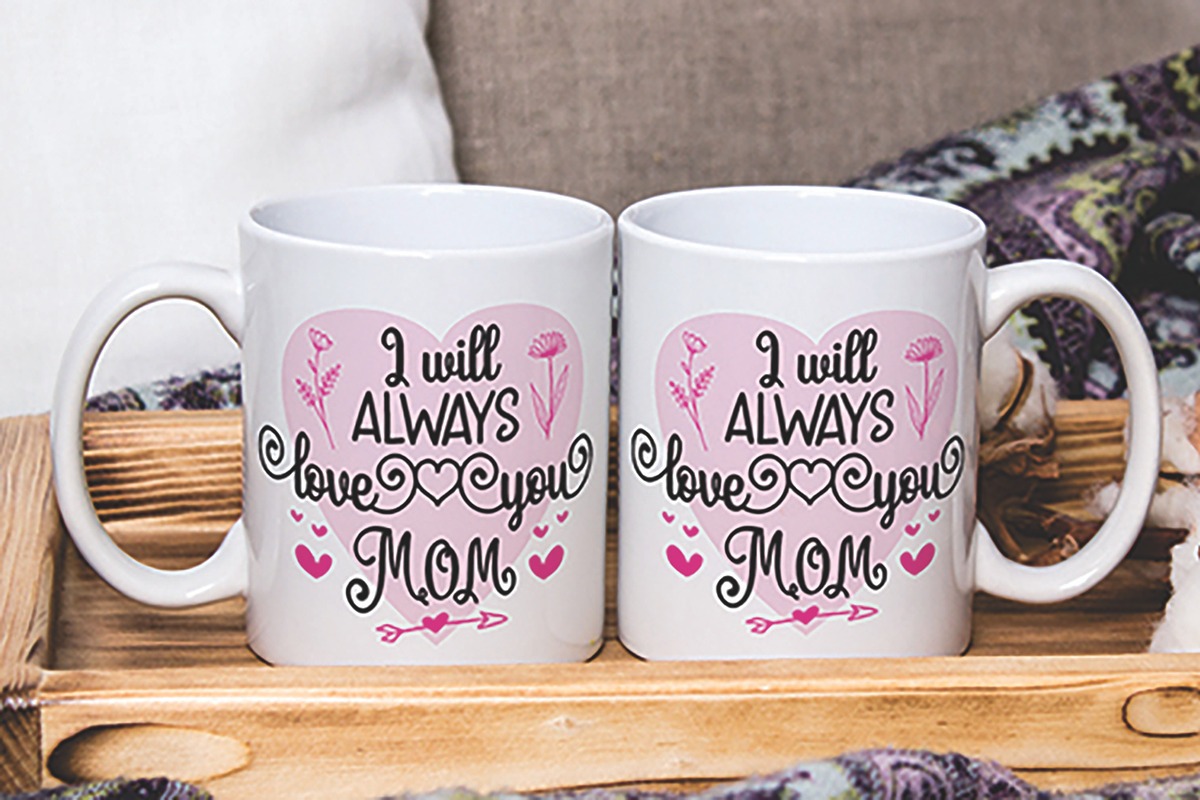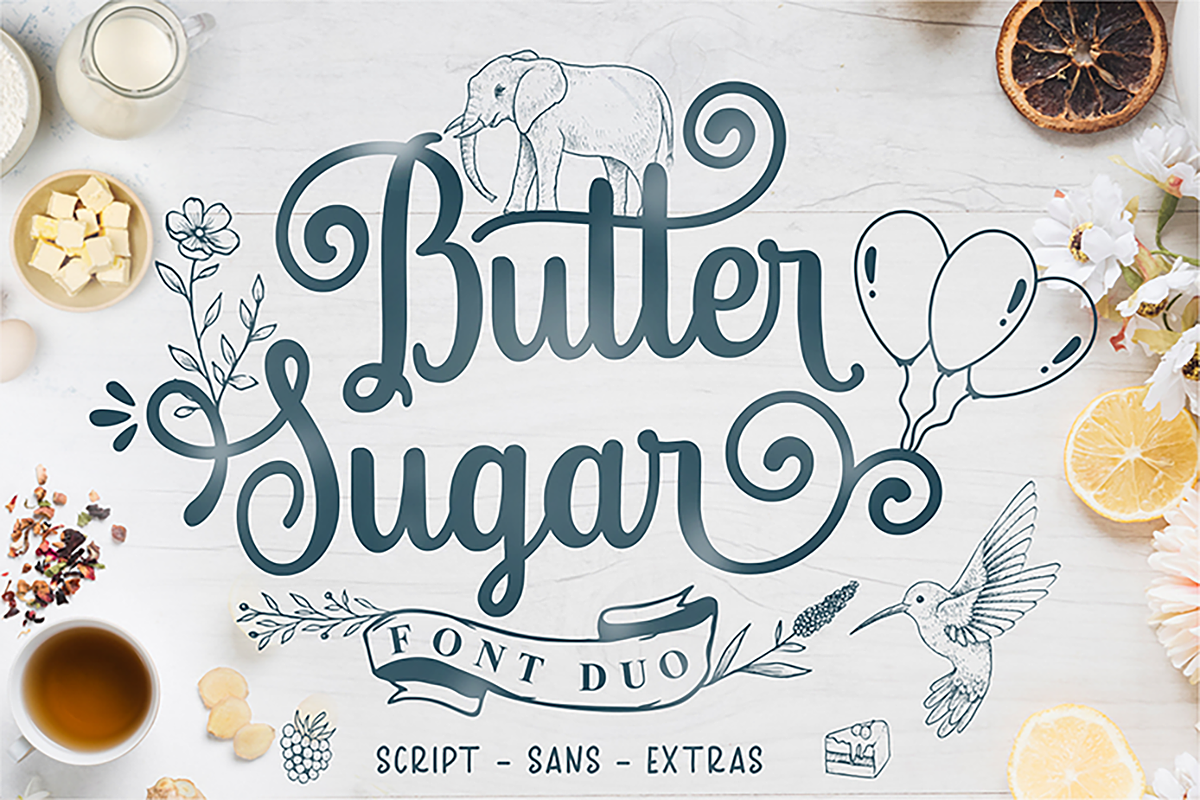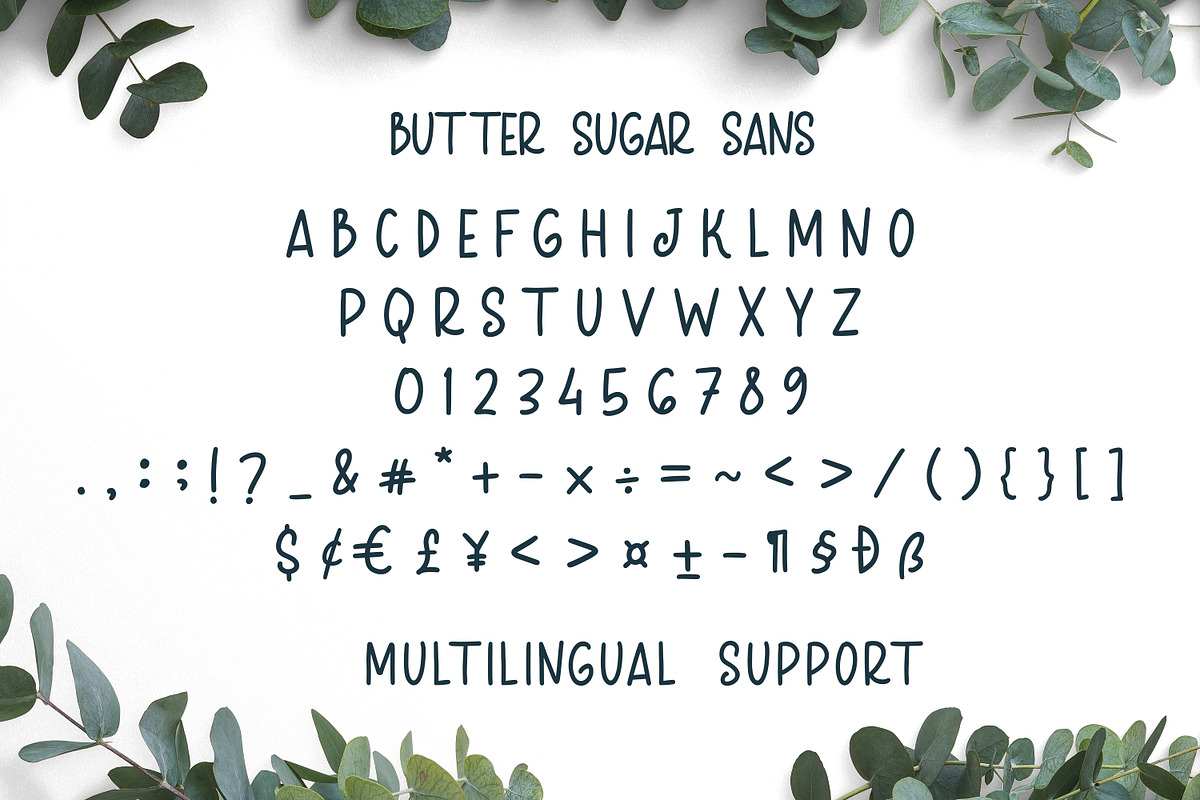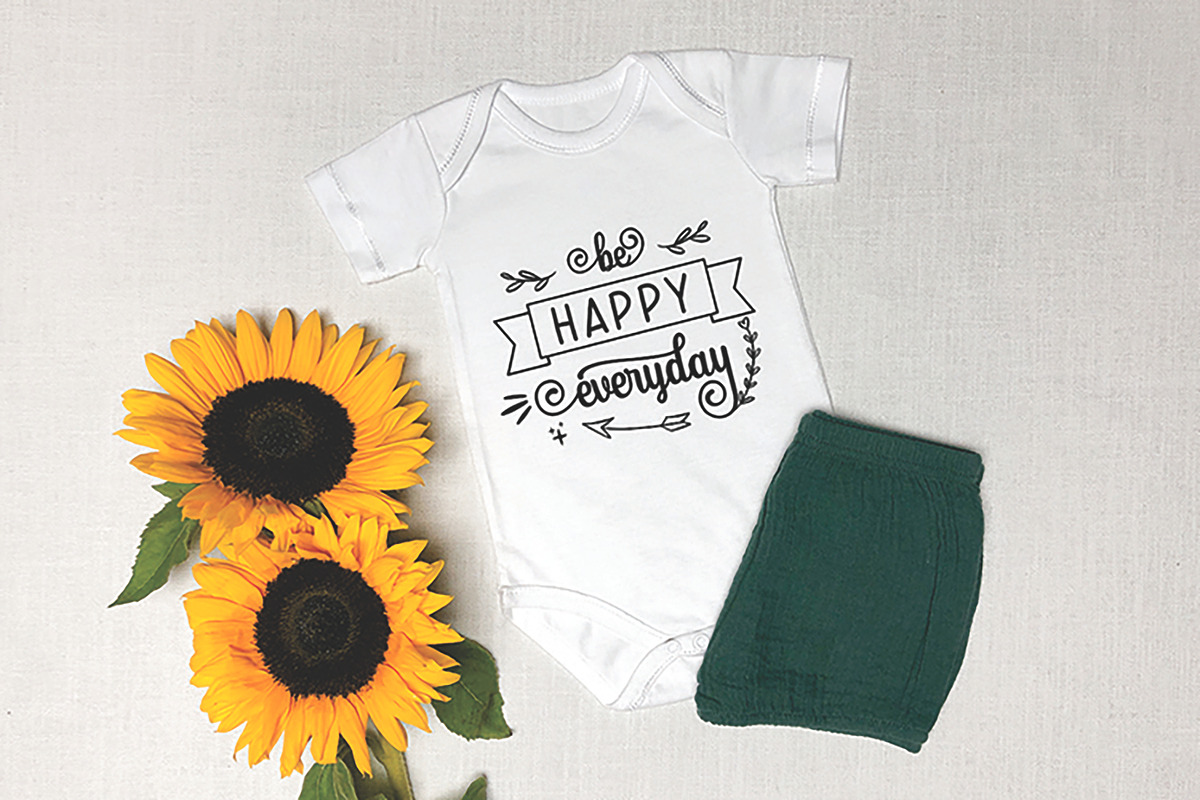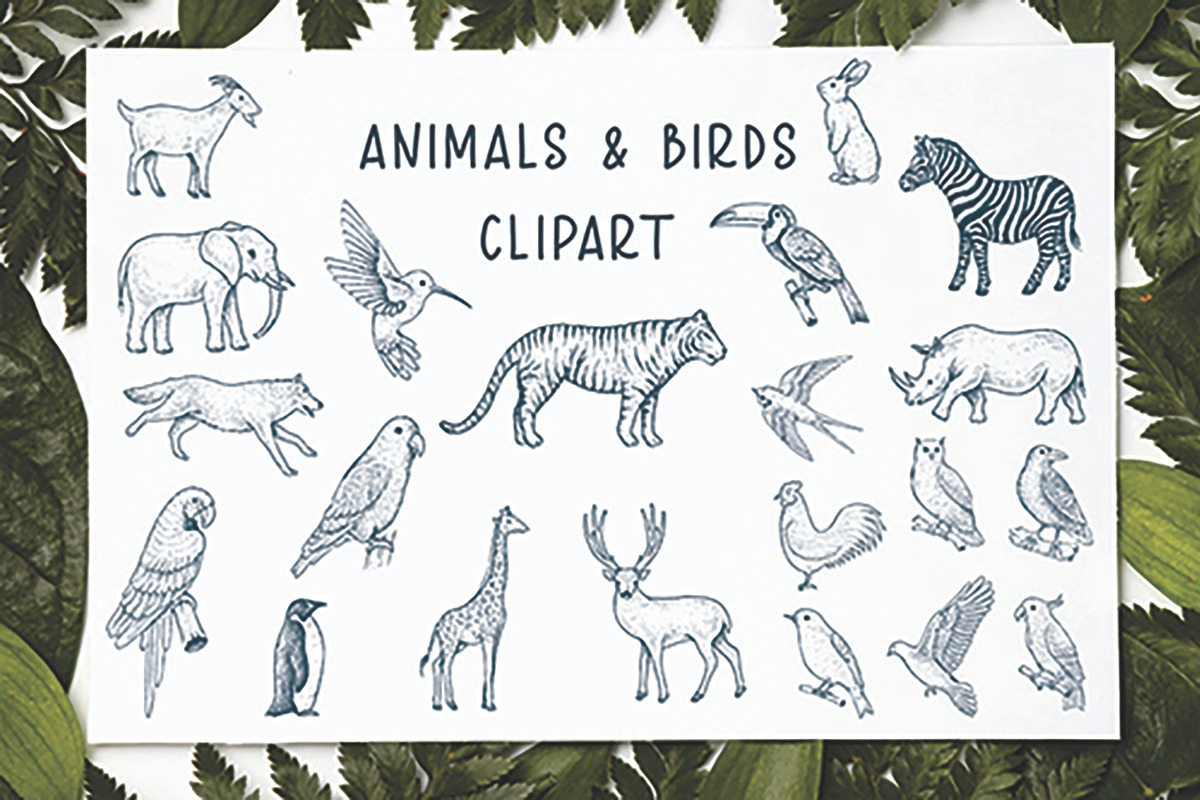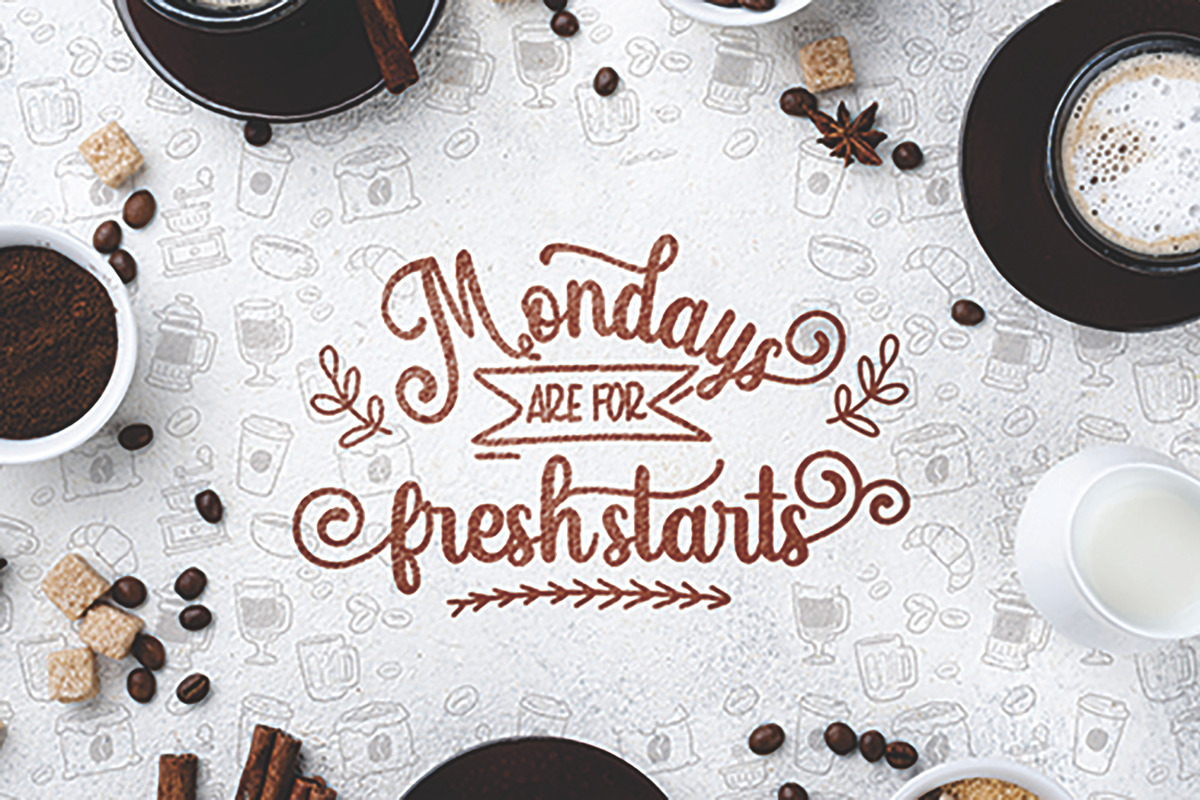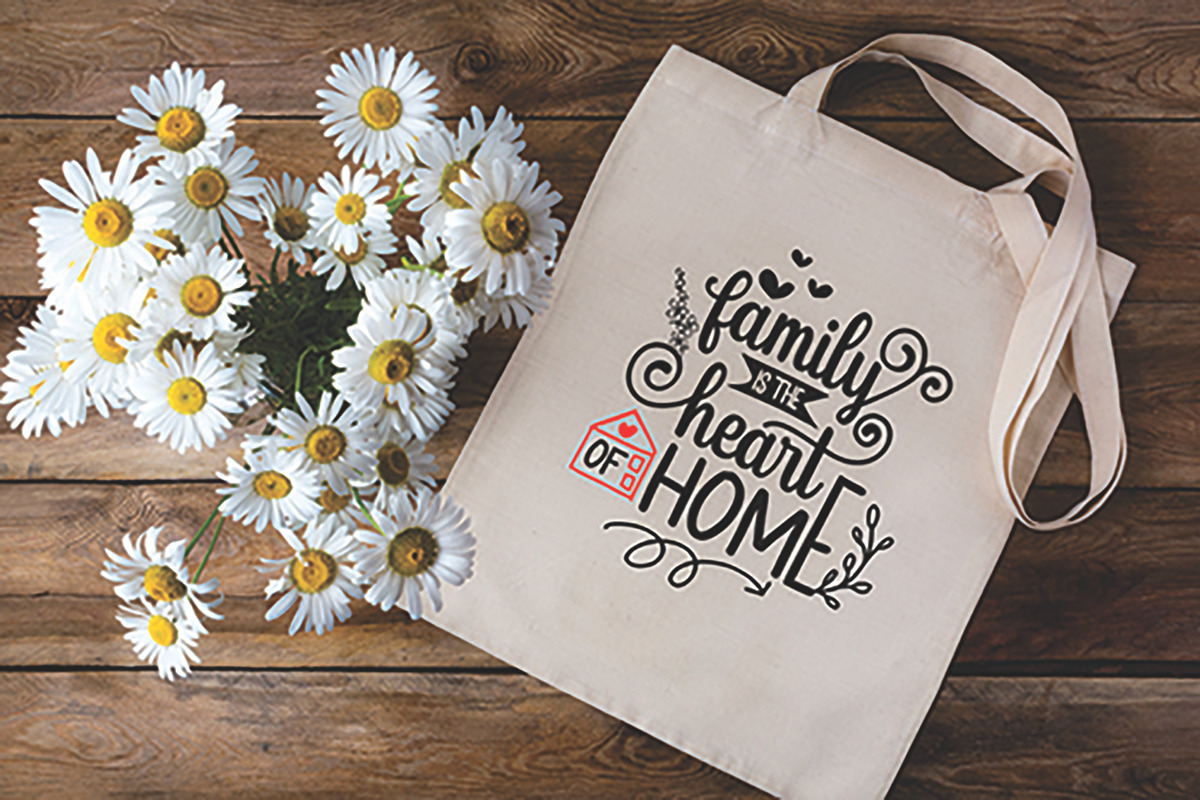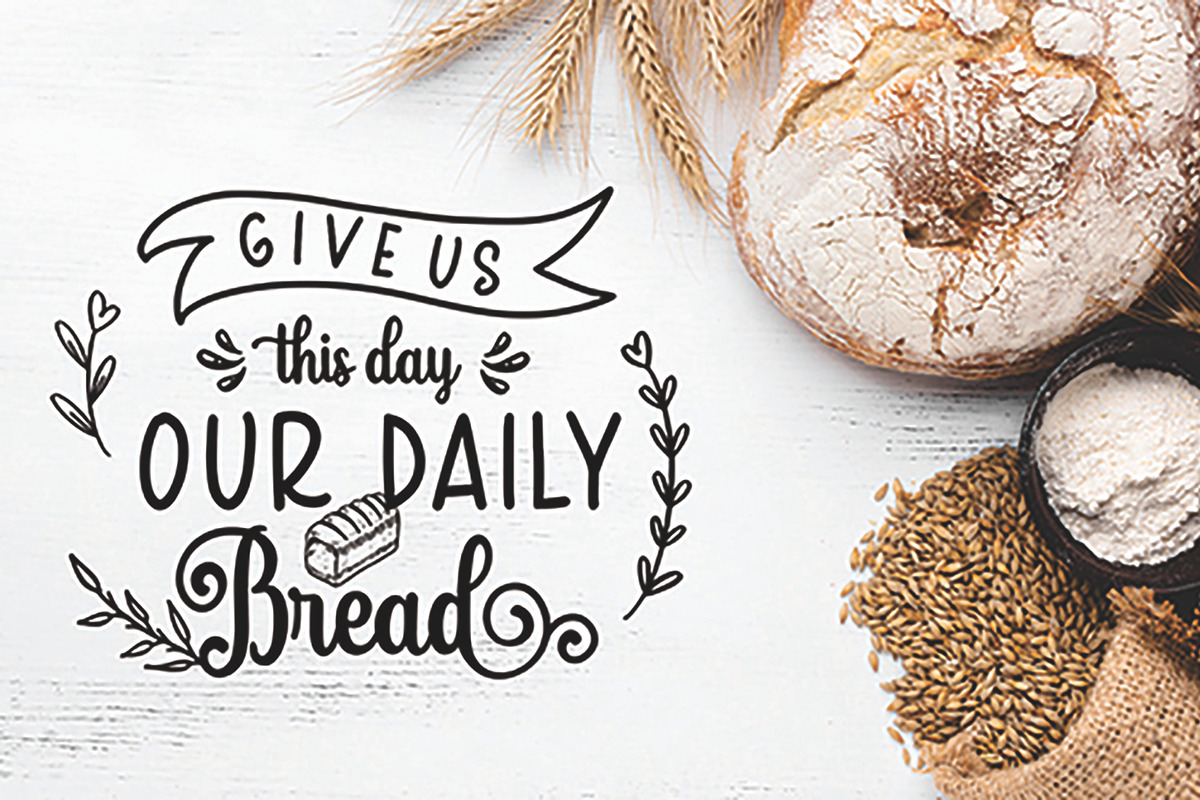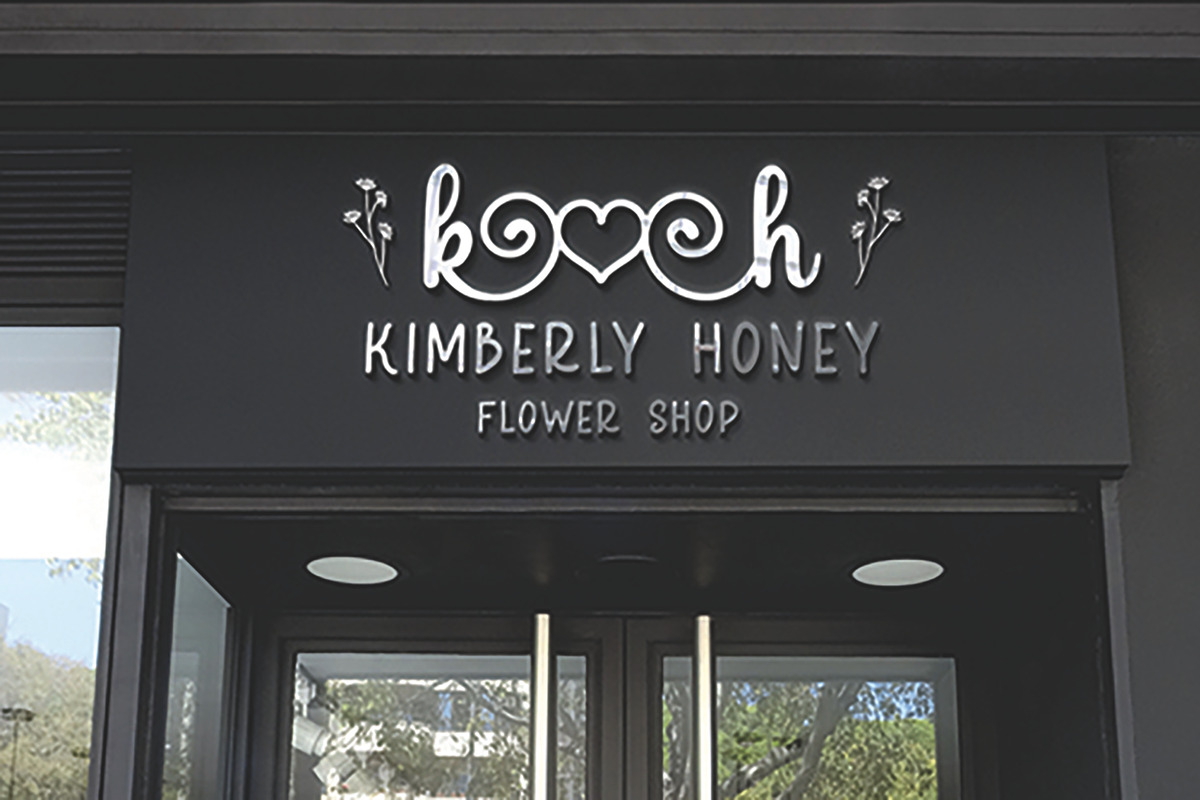
Butter Sugar
Butter Sugar is an amazing typeface. It is one of the modern calligraphy script fonts that comes with very beautiful character changes.
Butter Sugar consists of 2 version : Script, Sans and extra cliparts.
Butter Sugar is interesting because the typeface is pleasing to the eye, clean, feminine, sensual, glamorous, simple and very easy to read, because there are many fancy letter connections. It has beautiful and well-balanced characters and as a result, it matches a wide pool of designs.
It is PUA encoded which means you can access all of the glyphs and swashes with ease!
Fall in love with its incredibly versatile style and use it to create spectacular designs!
Use this font for any crafting project that requires a personalized look!